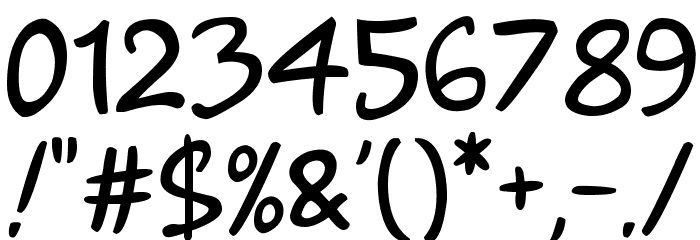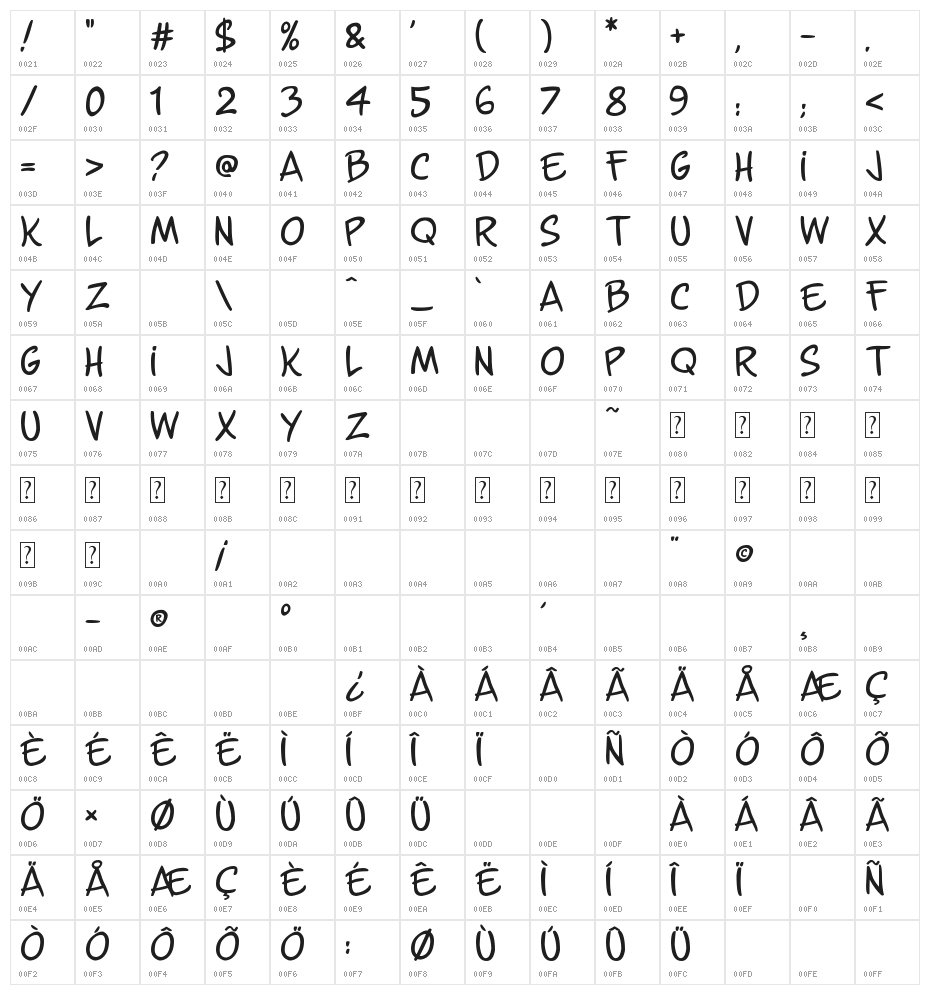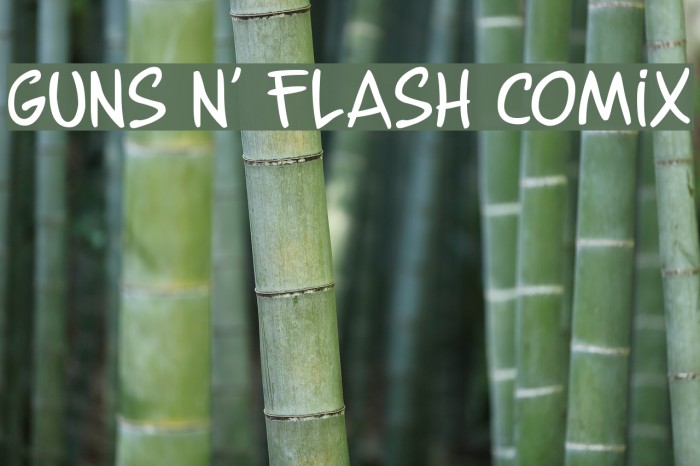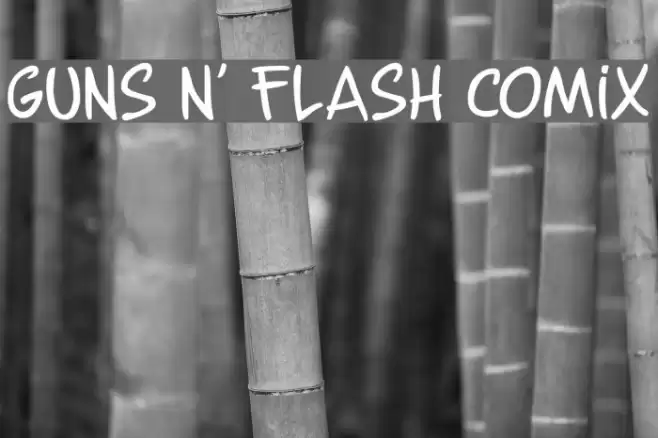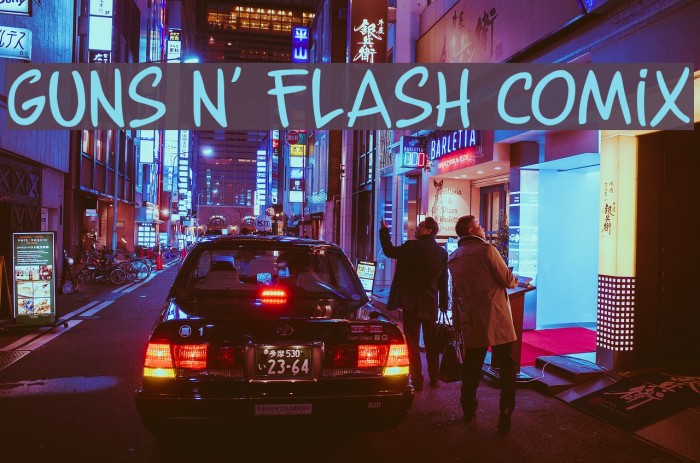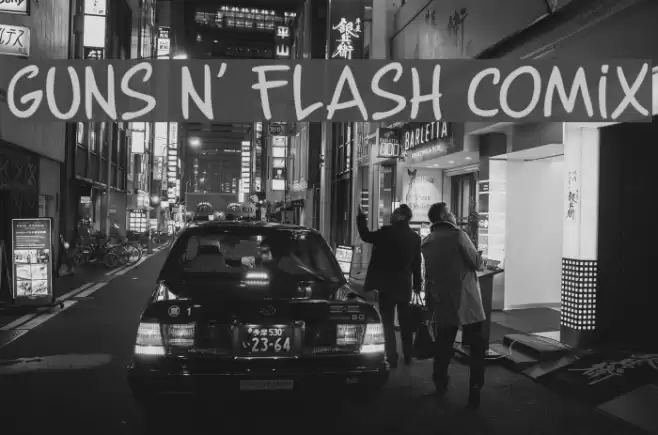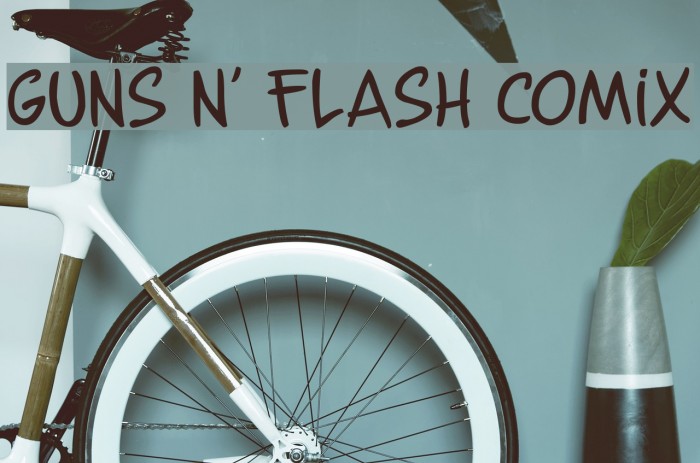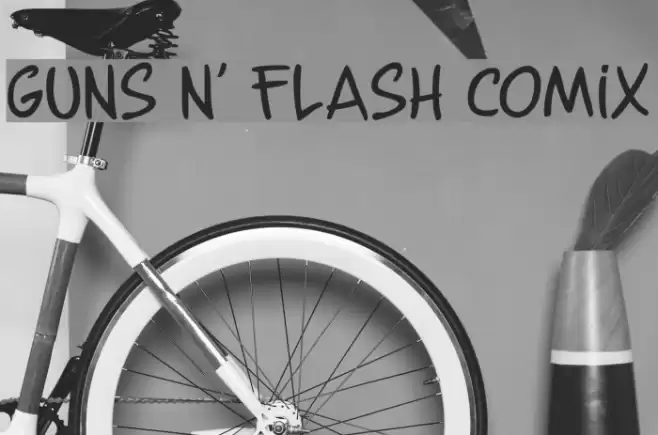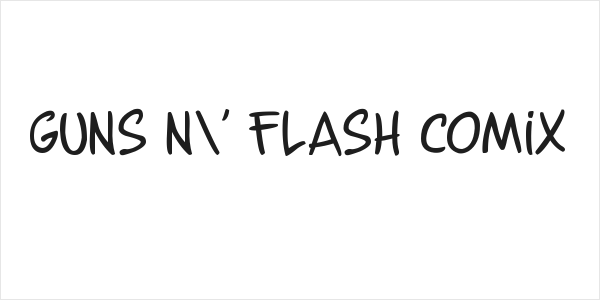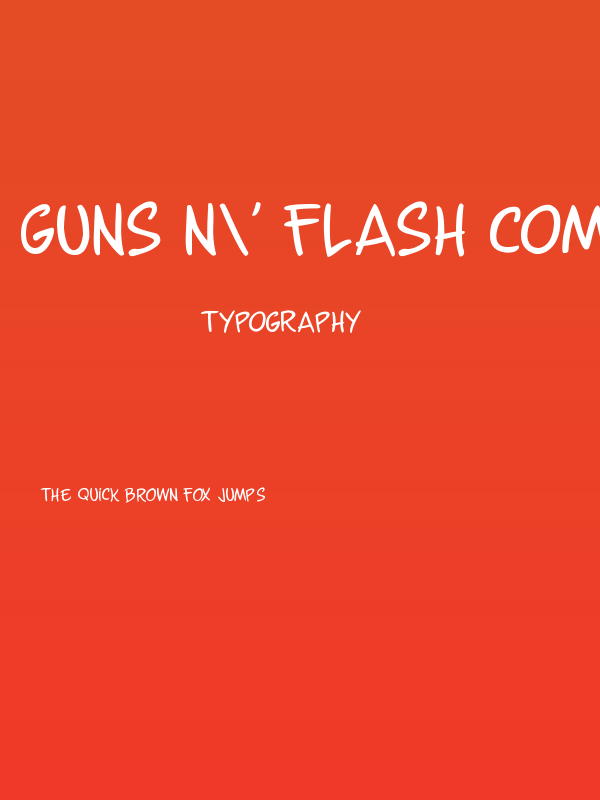
Guns n' Flash Comix Font
Guns n' Flash Comix Description
This font features a playful and energetic handwritten style, characterized by its bold and slightly irregular strokes. The letters have a casual, comic-like appearance with a dynamic flow, making it ideal for informal and creative projects. The uppercase and lowercase letters maintain a consistent style, with rounded edges and a slight slant that adds to its lively personality. Numbers and special characters are designed to match the overall aesthetic, ensuring a cohesive look across all text elements. The font's unique charm lies in its ability to convey a sense of fun and spontaneity, making it perfect for projects that aim to capture attention and evoke a sense of whimsy.
Proposed ProjectsComic books, children's books, playful branding, greeting cards, and creative posters.